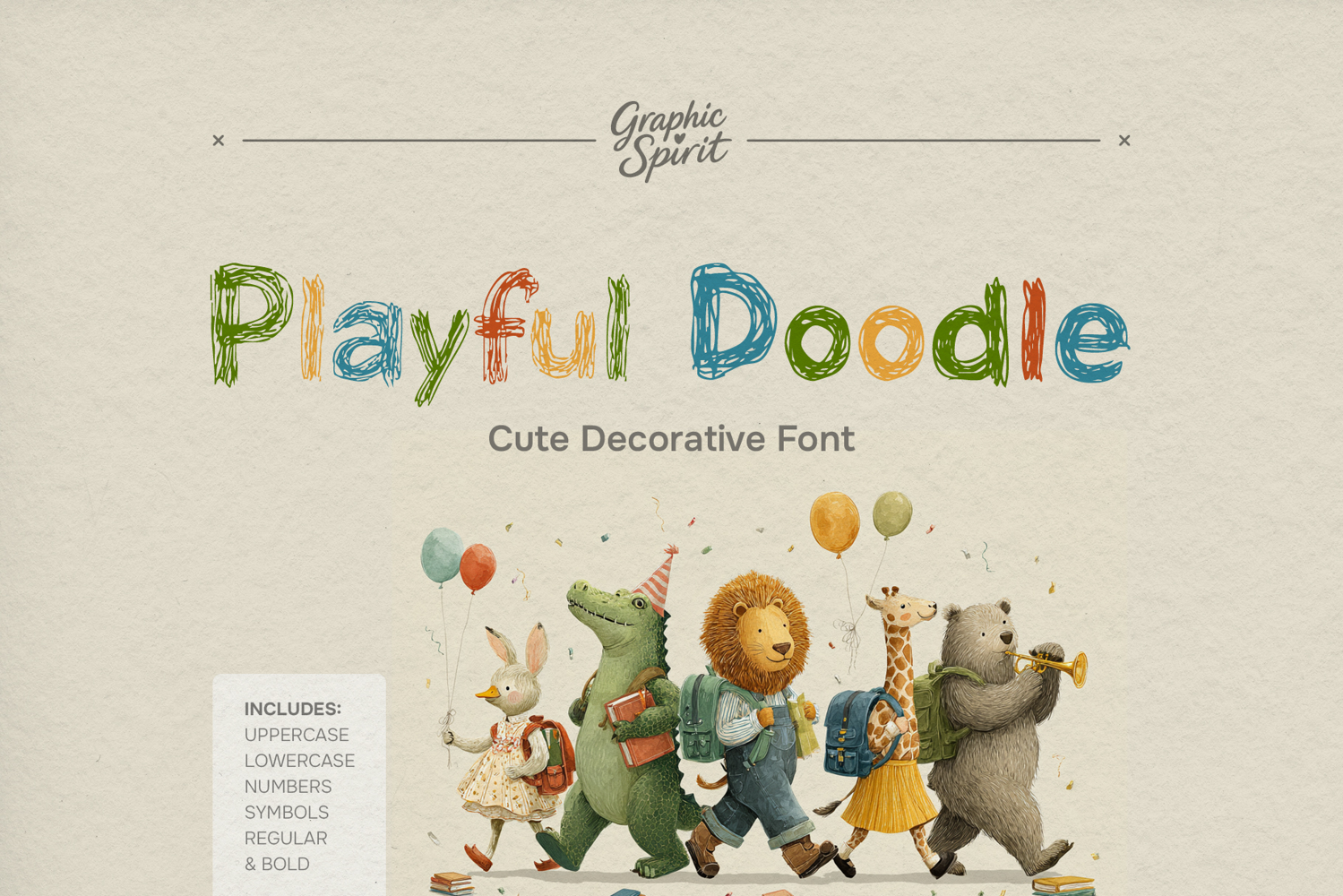
Playful Doodle Cute Decorative Font
✨ Welcome to your new favorite font! Playful Doodle is the perfect cute decorative typeface to make your projects shine. This hand-drawn, whimsical font is ideal for adding a, joyful touch to everything from logos and branding to wedding invites, baby announcements, and craft projects. Instantly download this unique font to elevate your digital creations with charm and character.
🎨 Helps you create stunning, eye-catching work that stands out from the crowd. Let your creativity run wild! 💖